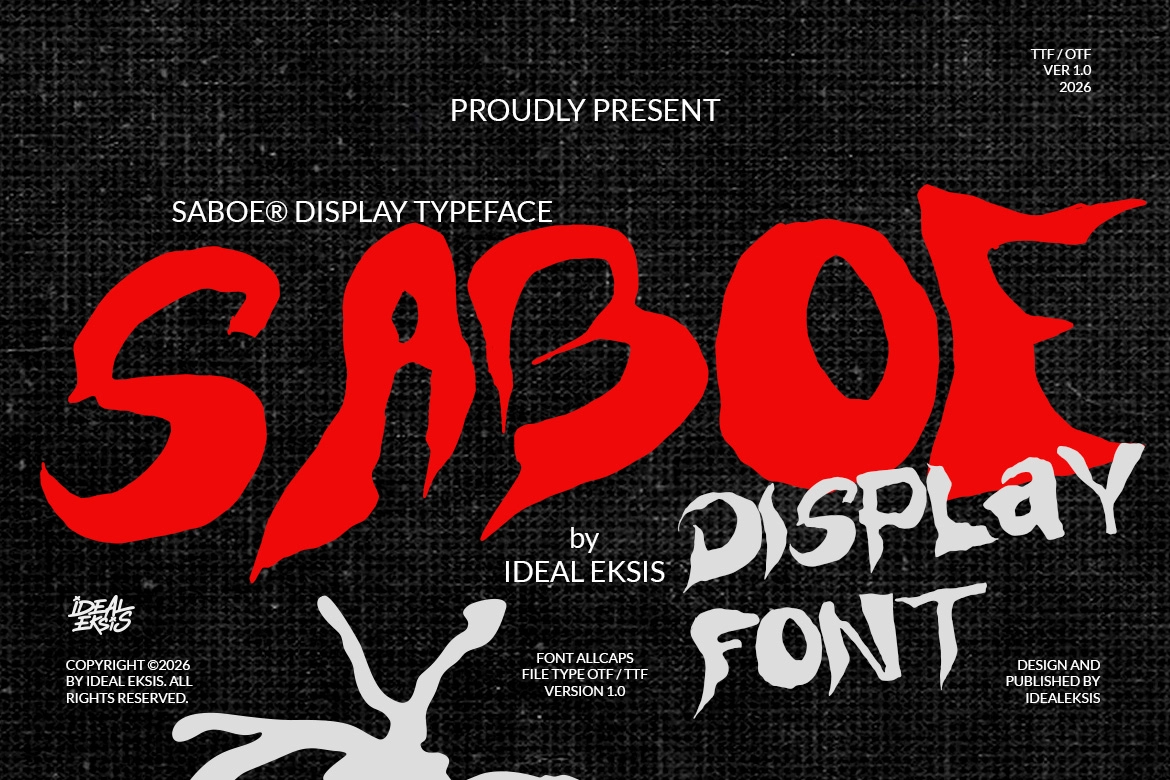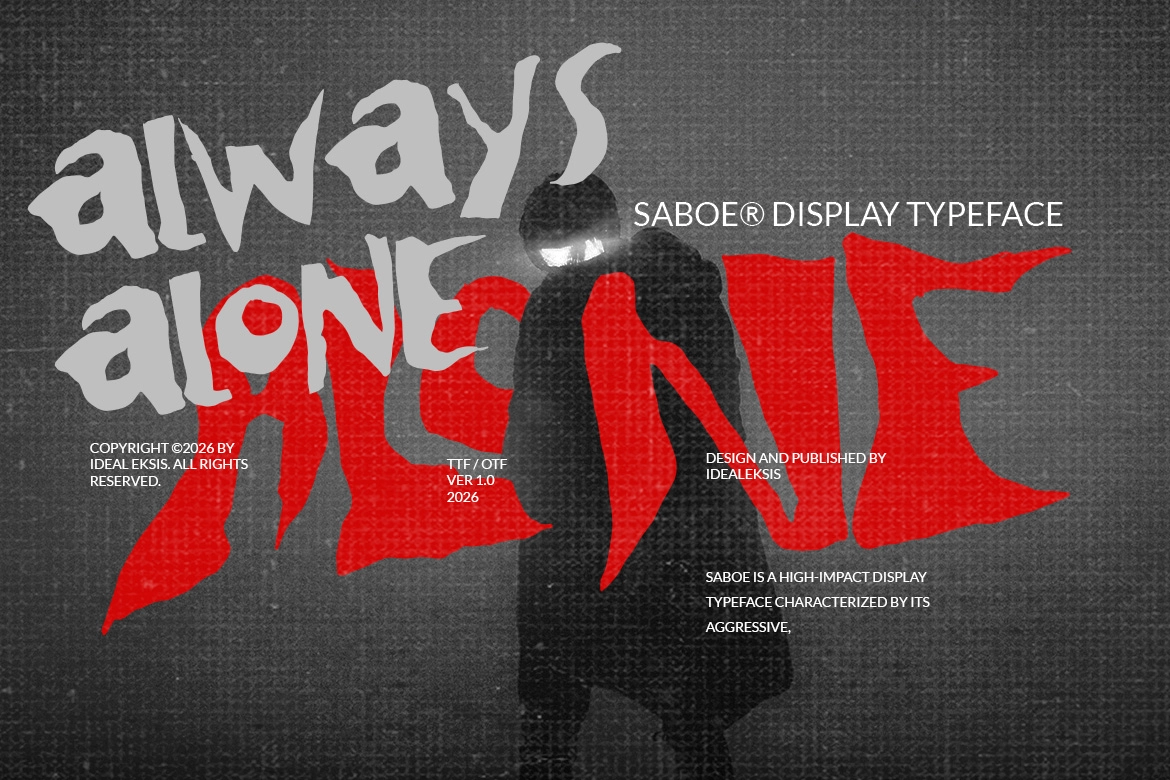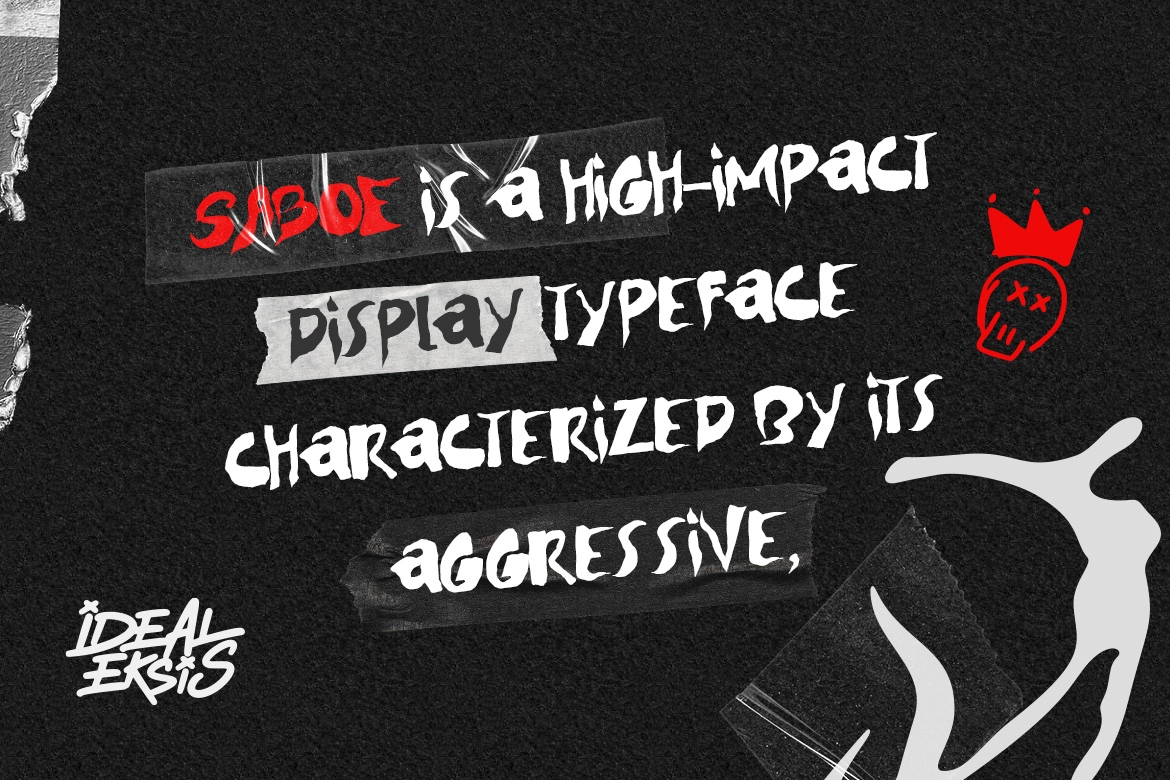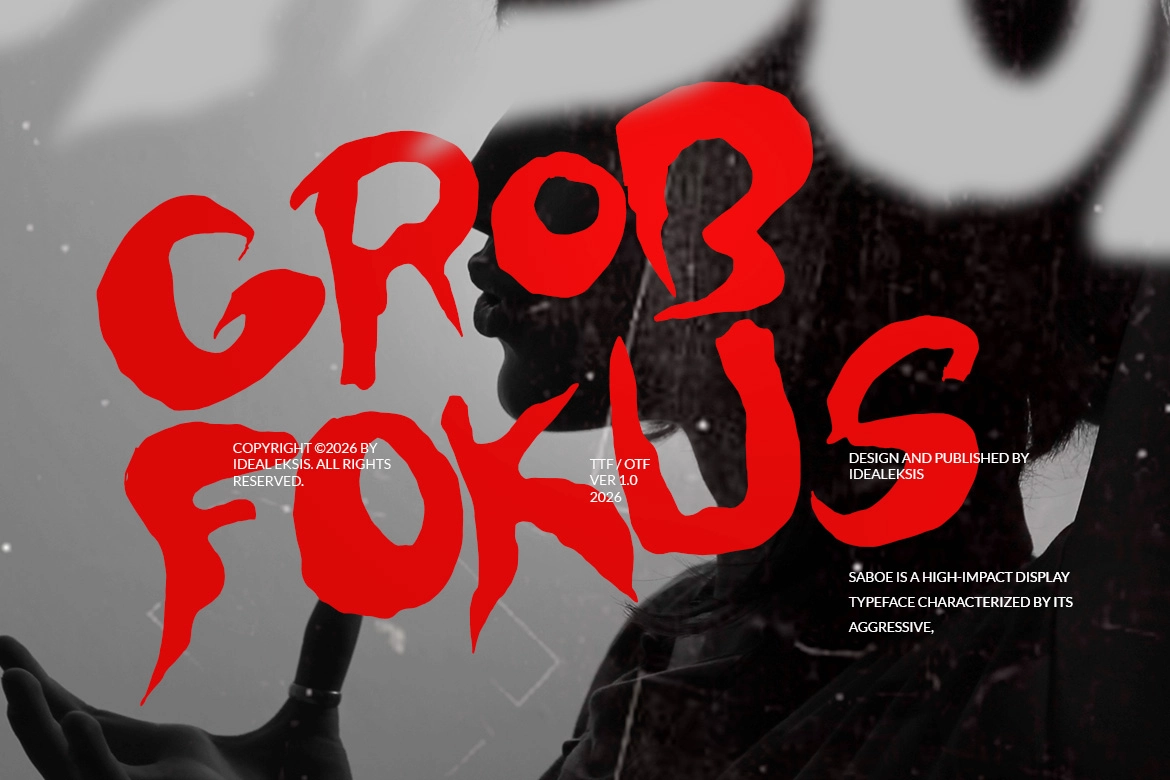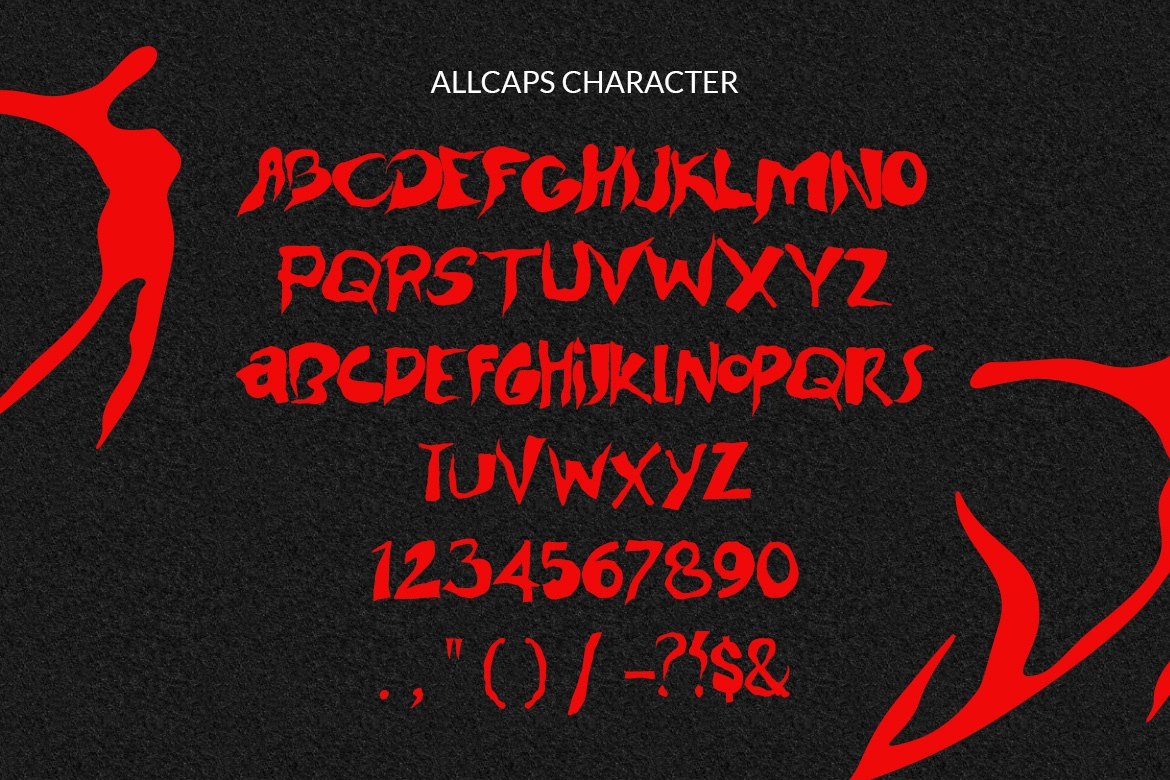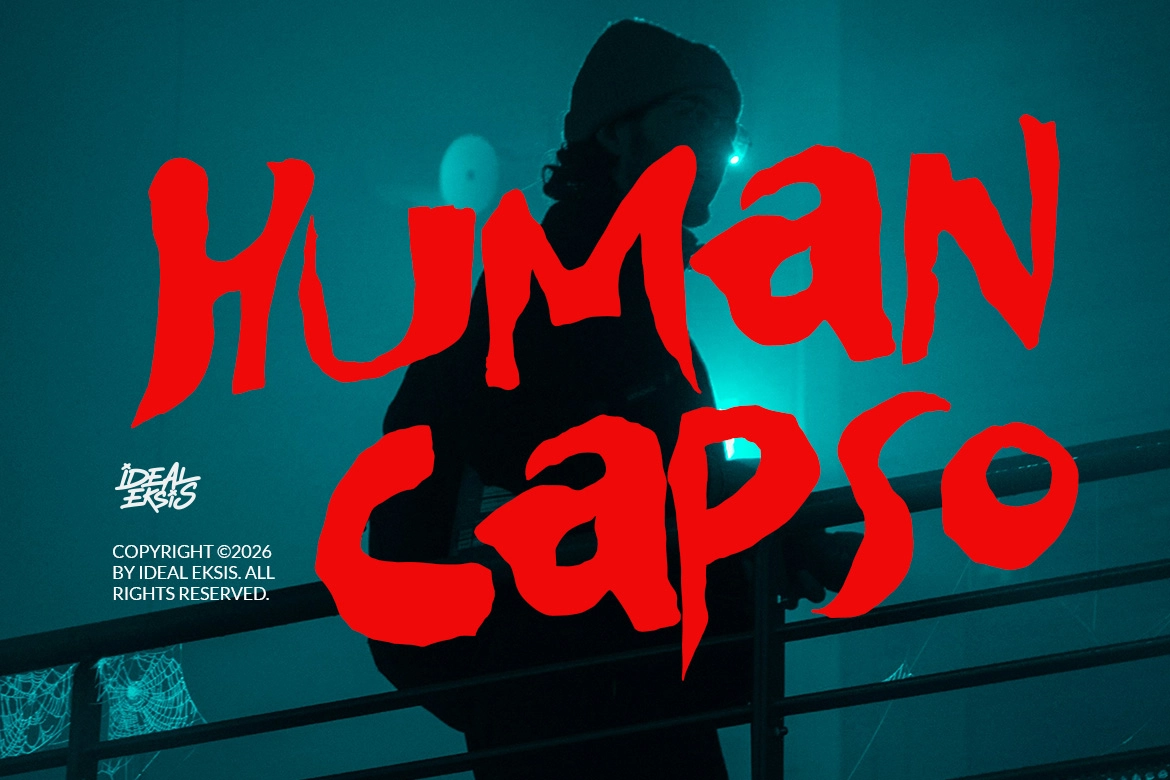
Saboe - Aggressive Grunge Display Font
Saboe
Saboe – Aggressive Grunge Display Font is a high-impact typeface built for designs that demand intensity. Featuring jagged, irregular letterforms with sharp terminals and raw brush-like strokes, Saboe captures chaotic energy in every glyph. Its distressed edges and uneven rhythm create a bold, rebellious aesthetic that instantly commands attention.
Designed in an all-caps structure for maximum visual punch, Saboe is perfect for horror posters, music artwork, streetwear branding, gaming titles, and dark-themed graphics. Against textured or gritty backgrounds, it delivers a powerful presence while maintaining strong readability and character.
- Aggressive grunge display style
- All Caps (Uppercase only)
- Jagged, hand-drawn aesthetic
- Ligatures included